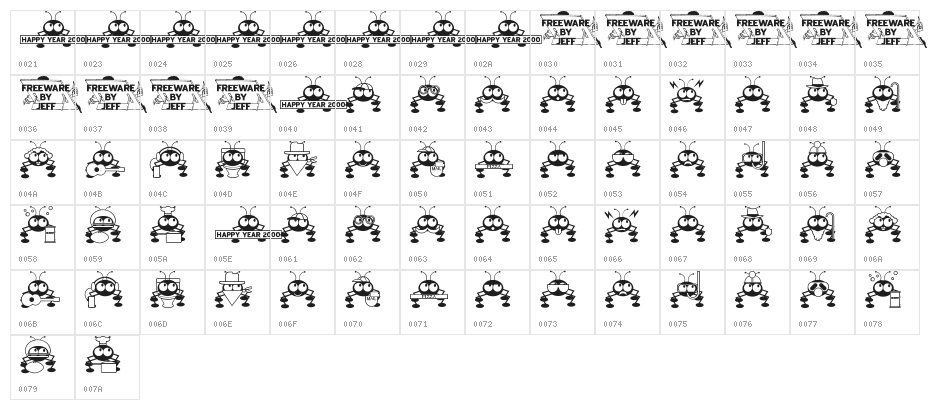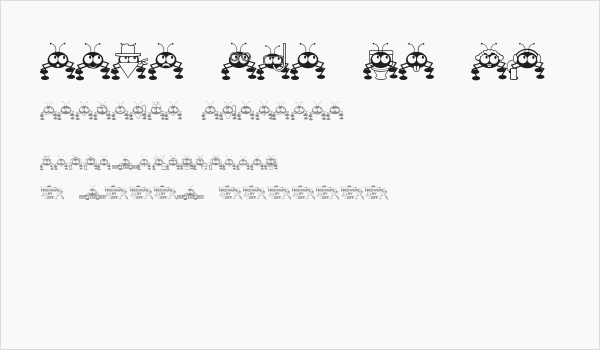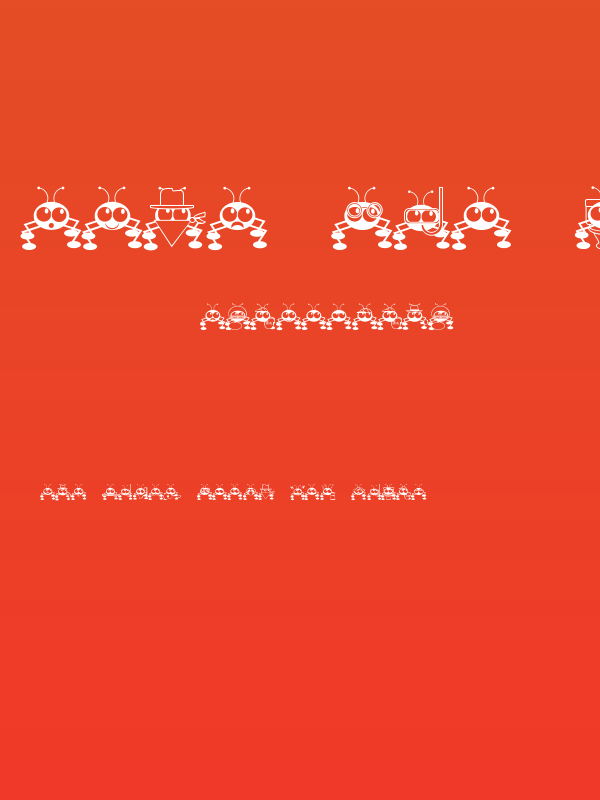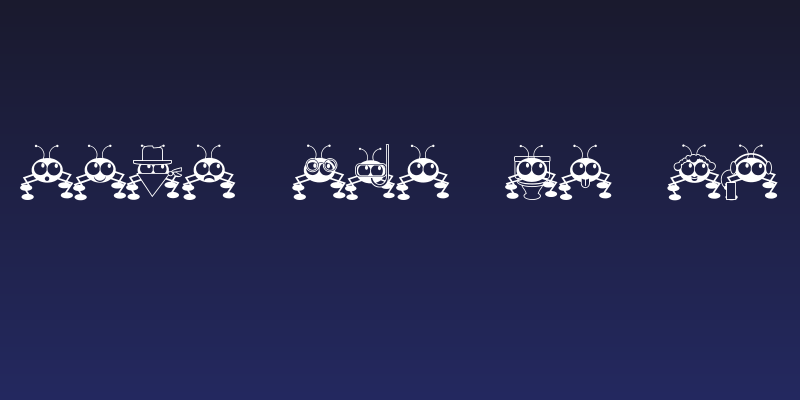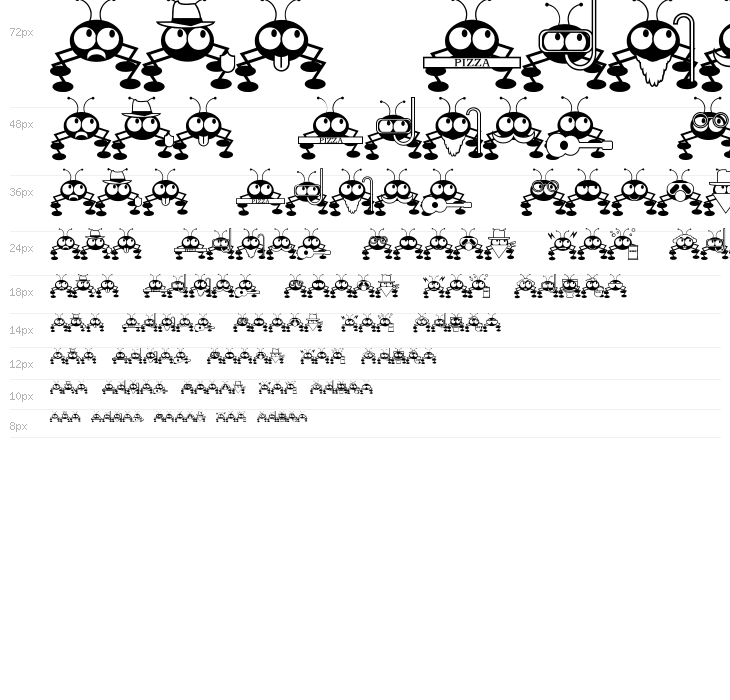
Don't Bug Me JL Font
Don't Bug Me JL Description
This is a playful and whimsical decorative font featuring cartoonish bug characters. Each character is creatively designed with unique expressions and accessories, adding a fun and lively touch to the text. The font is highly detailed, with each bug character having distinct features such as glasses, hats, and various props. This font is not meant for traditional text but rather for decorative purposes, making it ideal for projects that require a humorous or lighthearted theme. The characters are evenly spaced, ensuring readability while maintaining their quirky charm.
| Use Case | Logos, Decorative text |
| Proposed Projects | Ideal for children's books, playful invitations, greeting cards, and themed party decorations. |